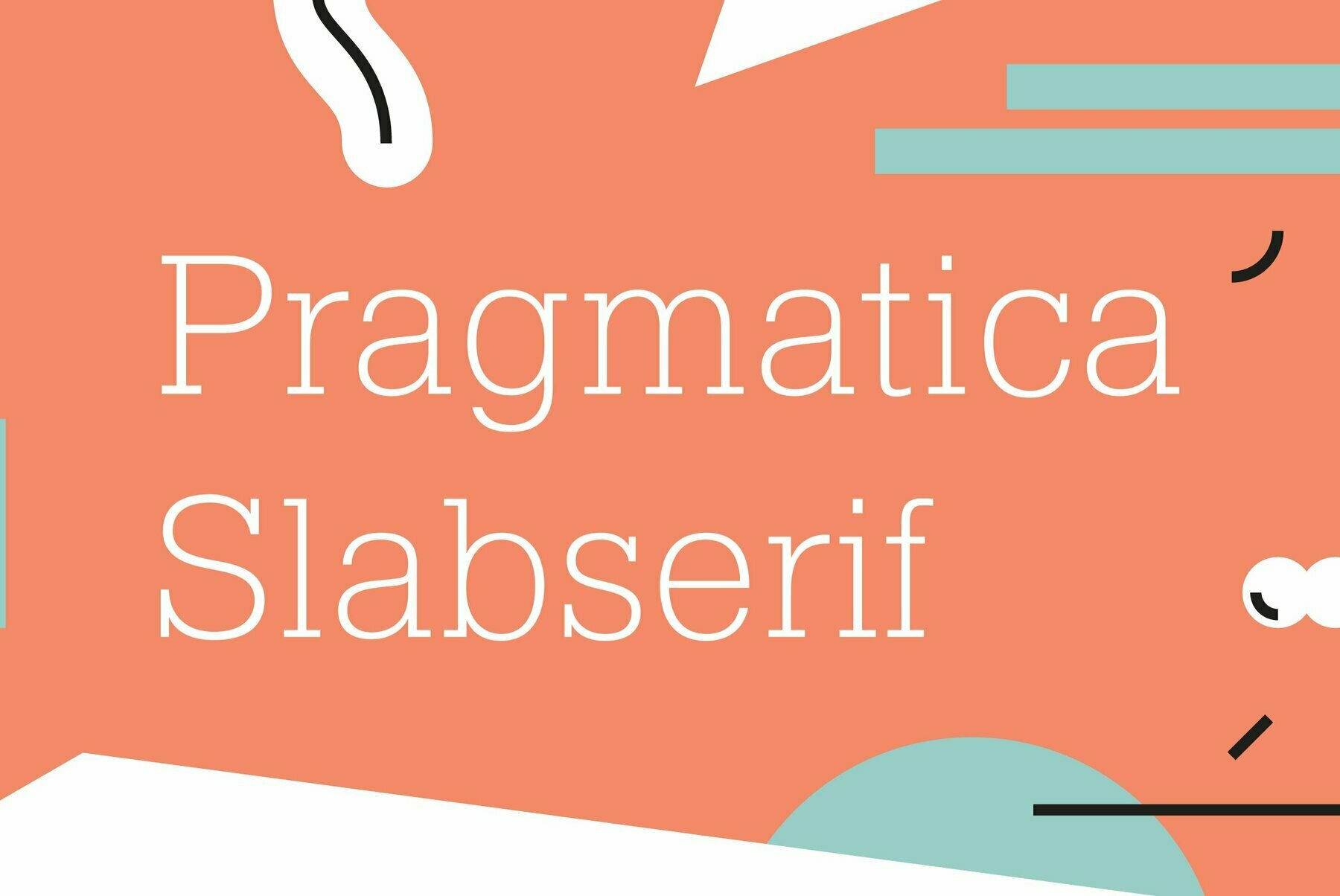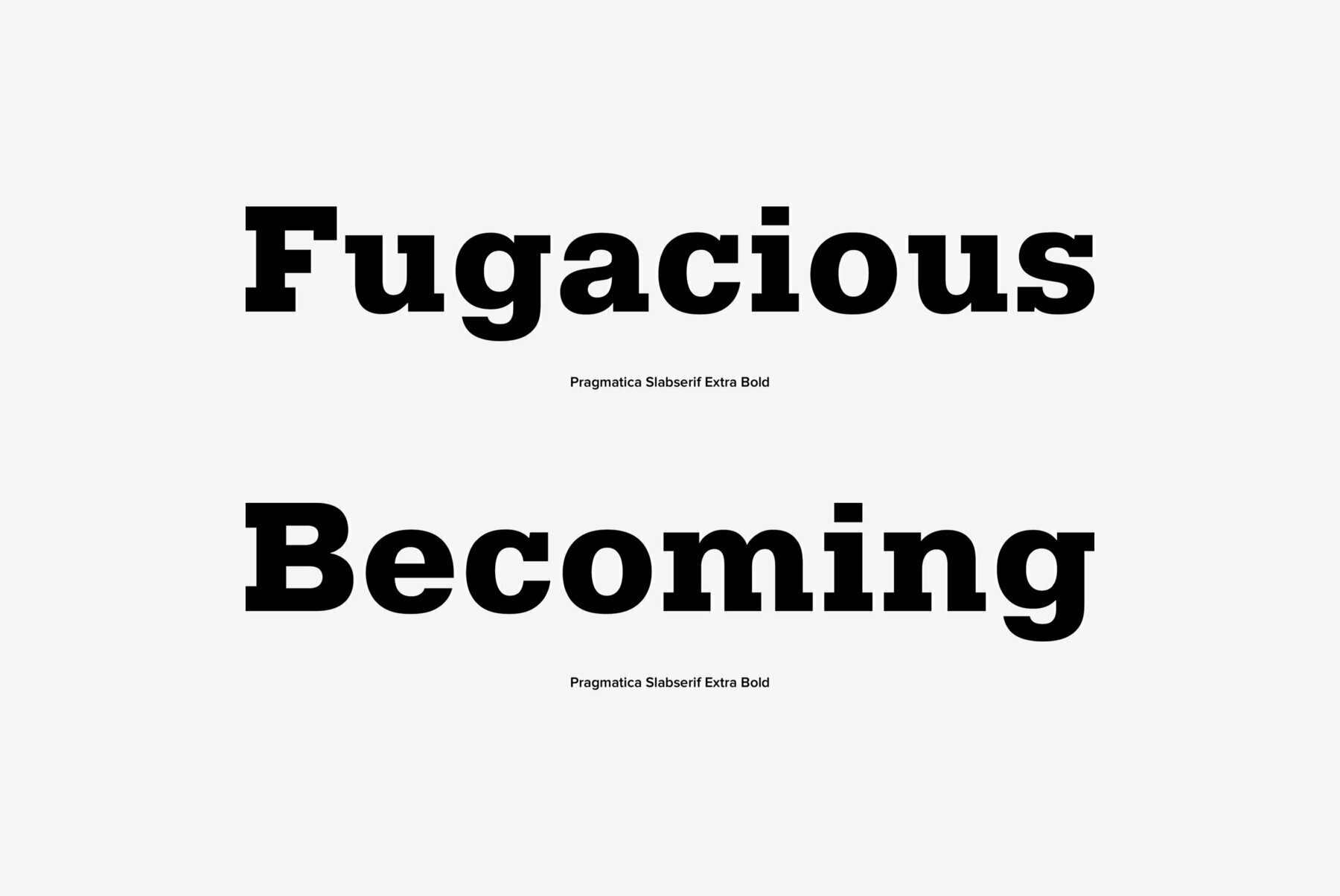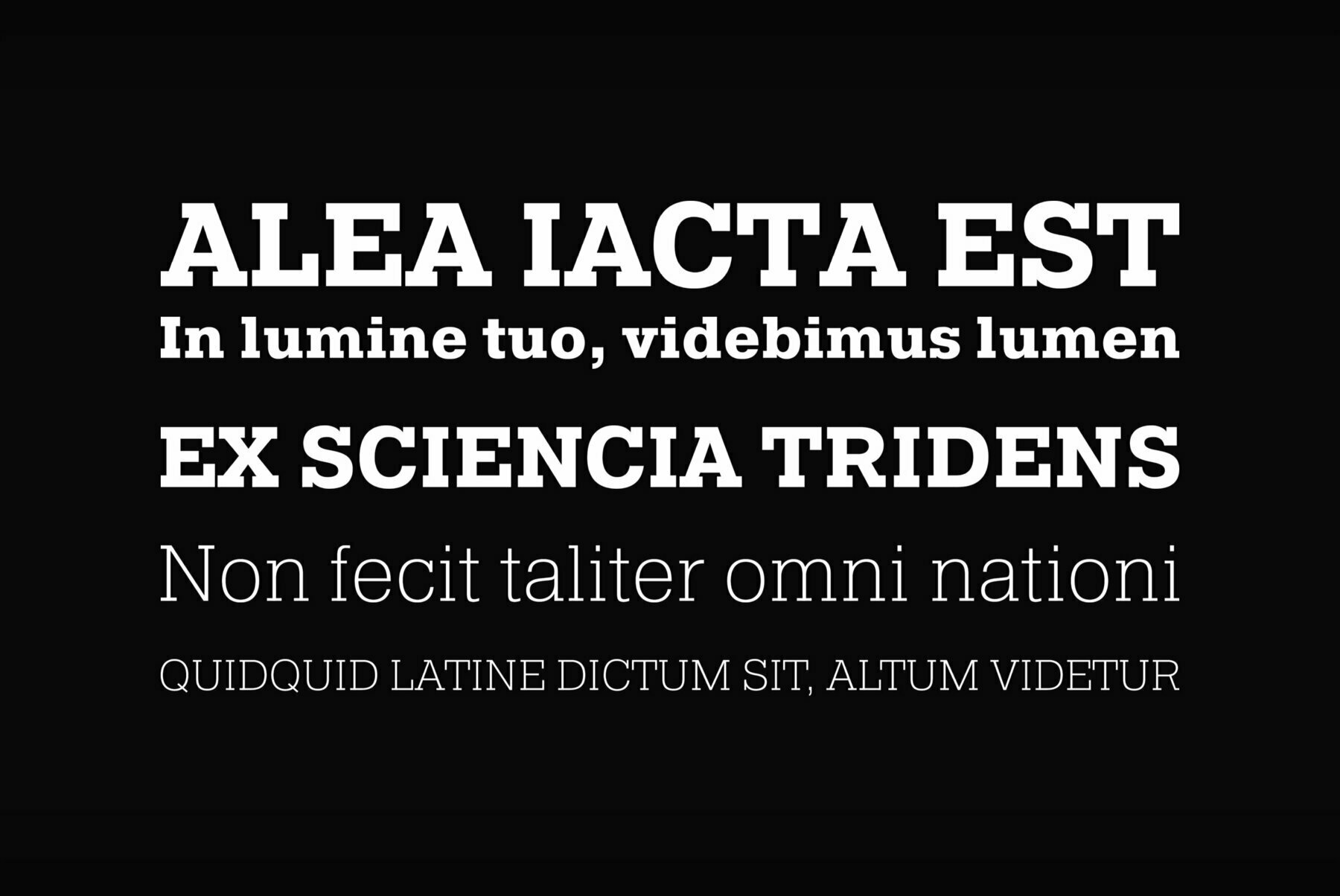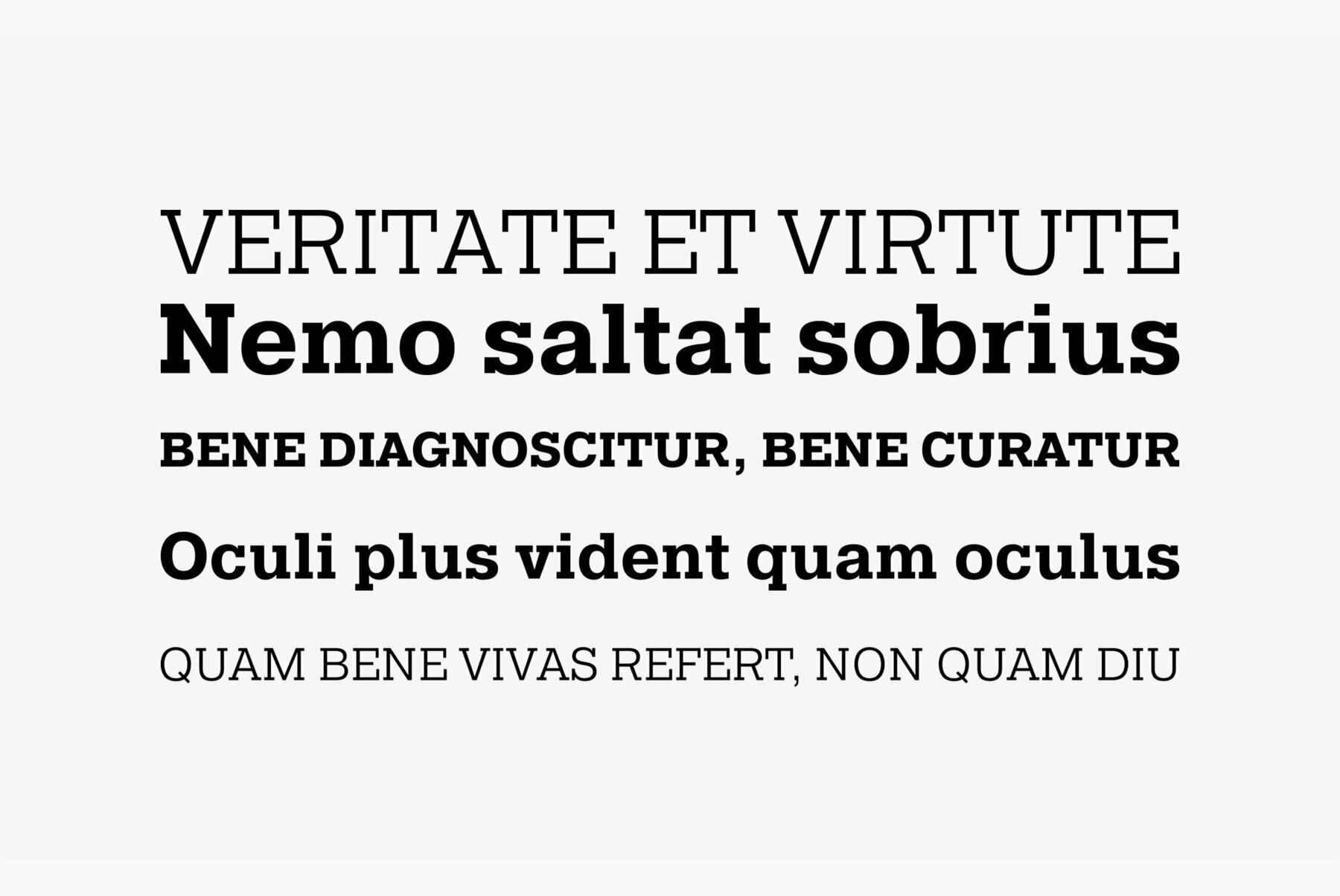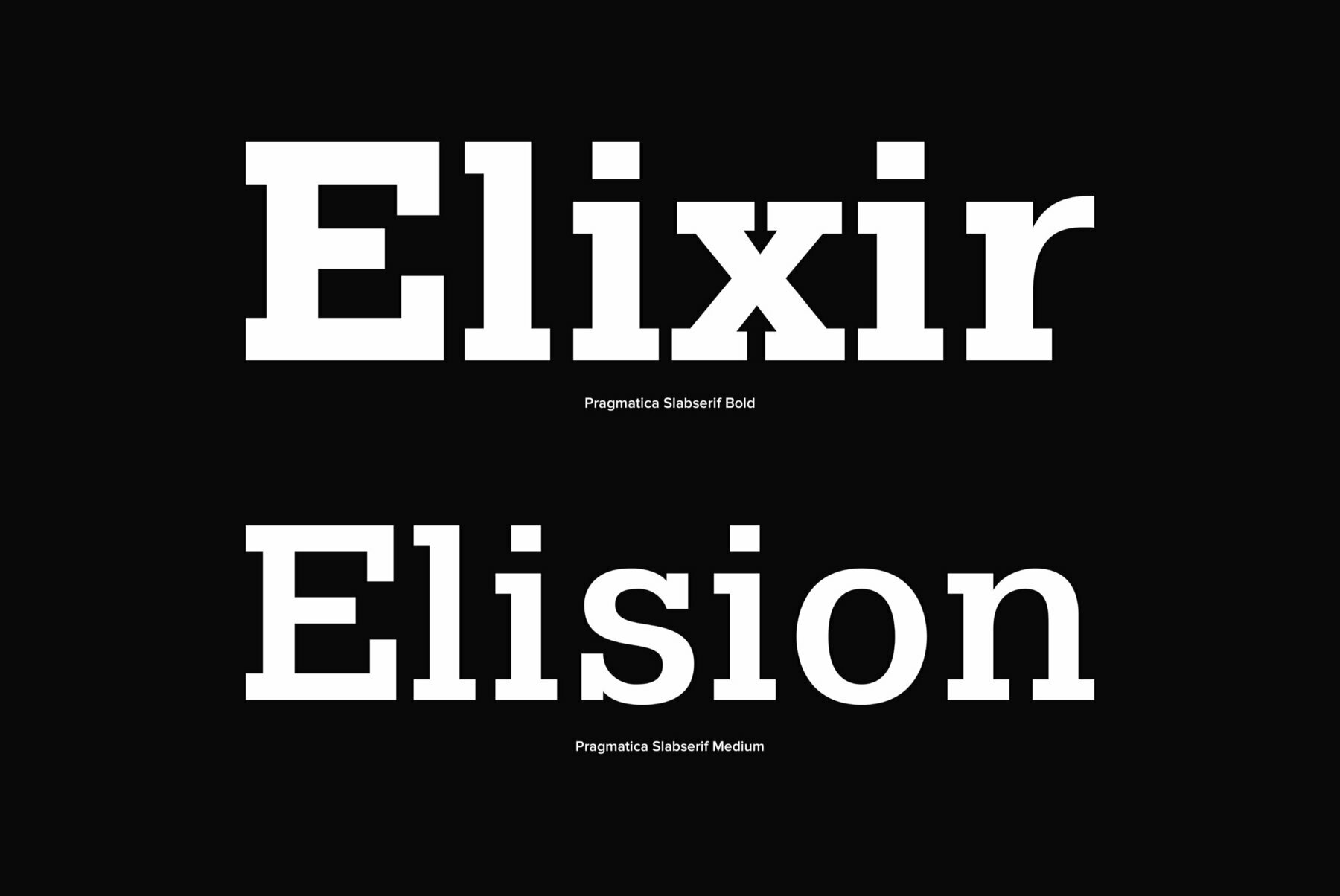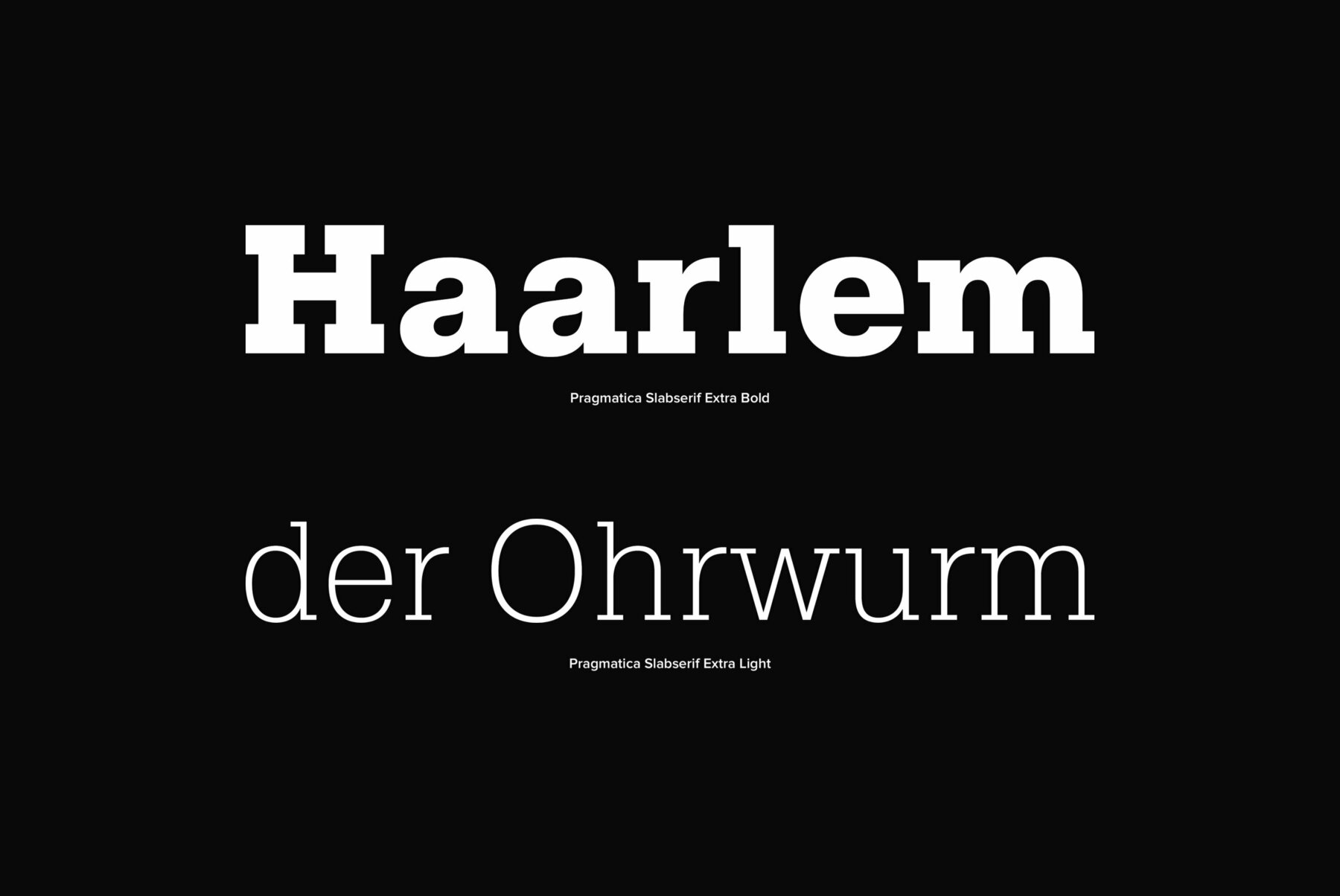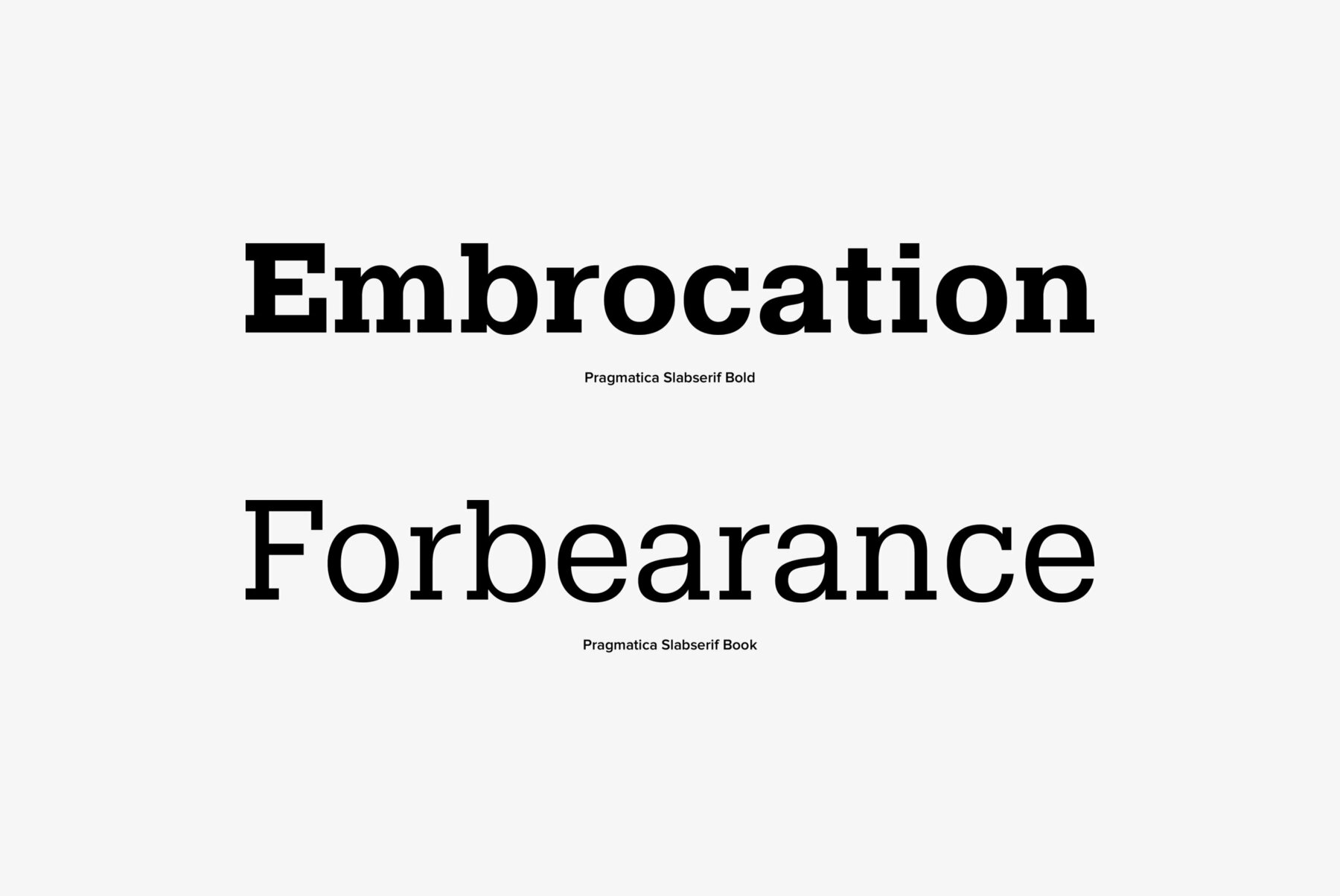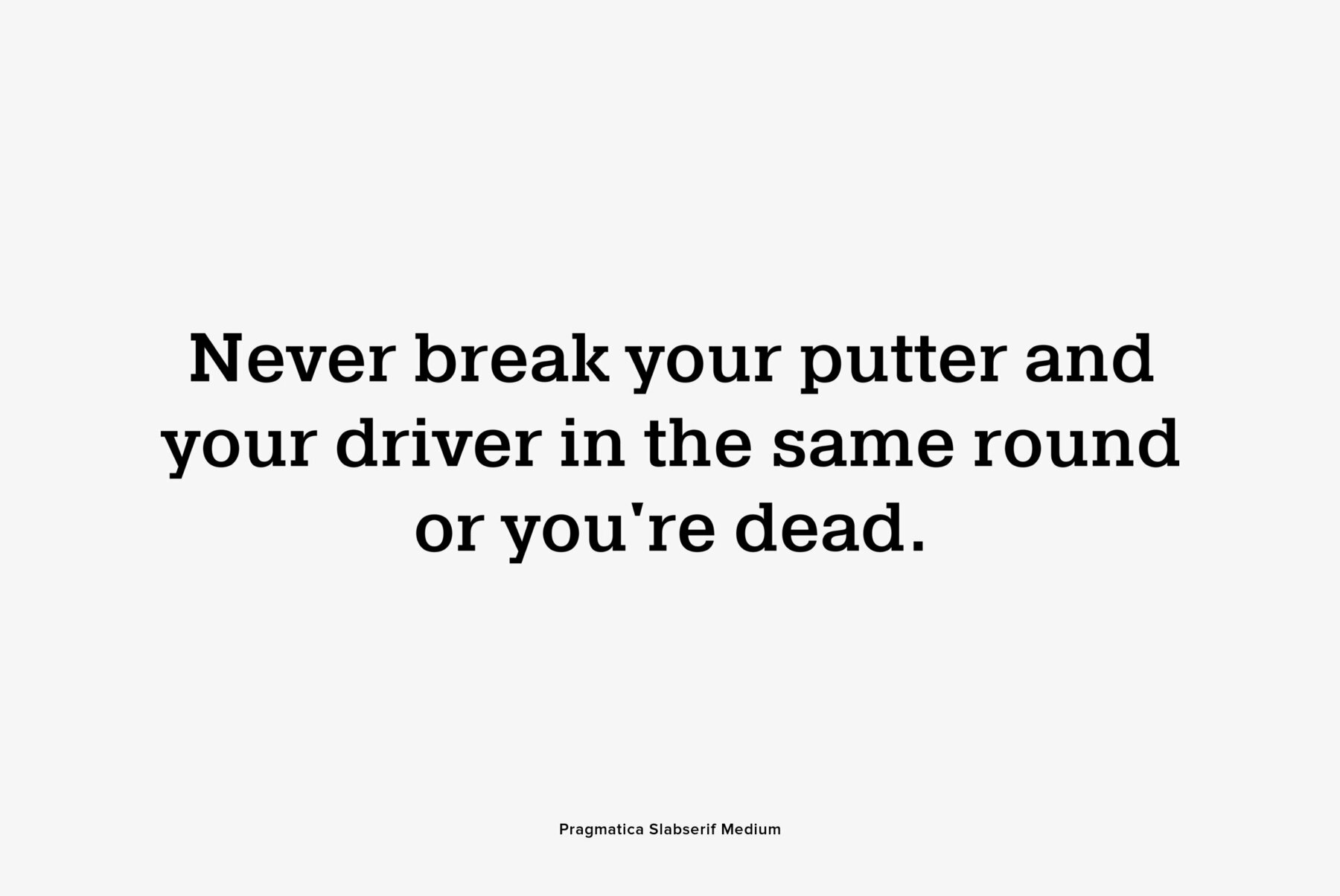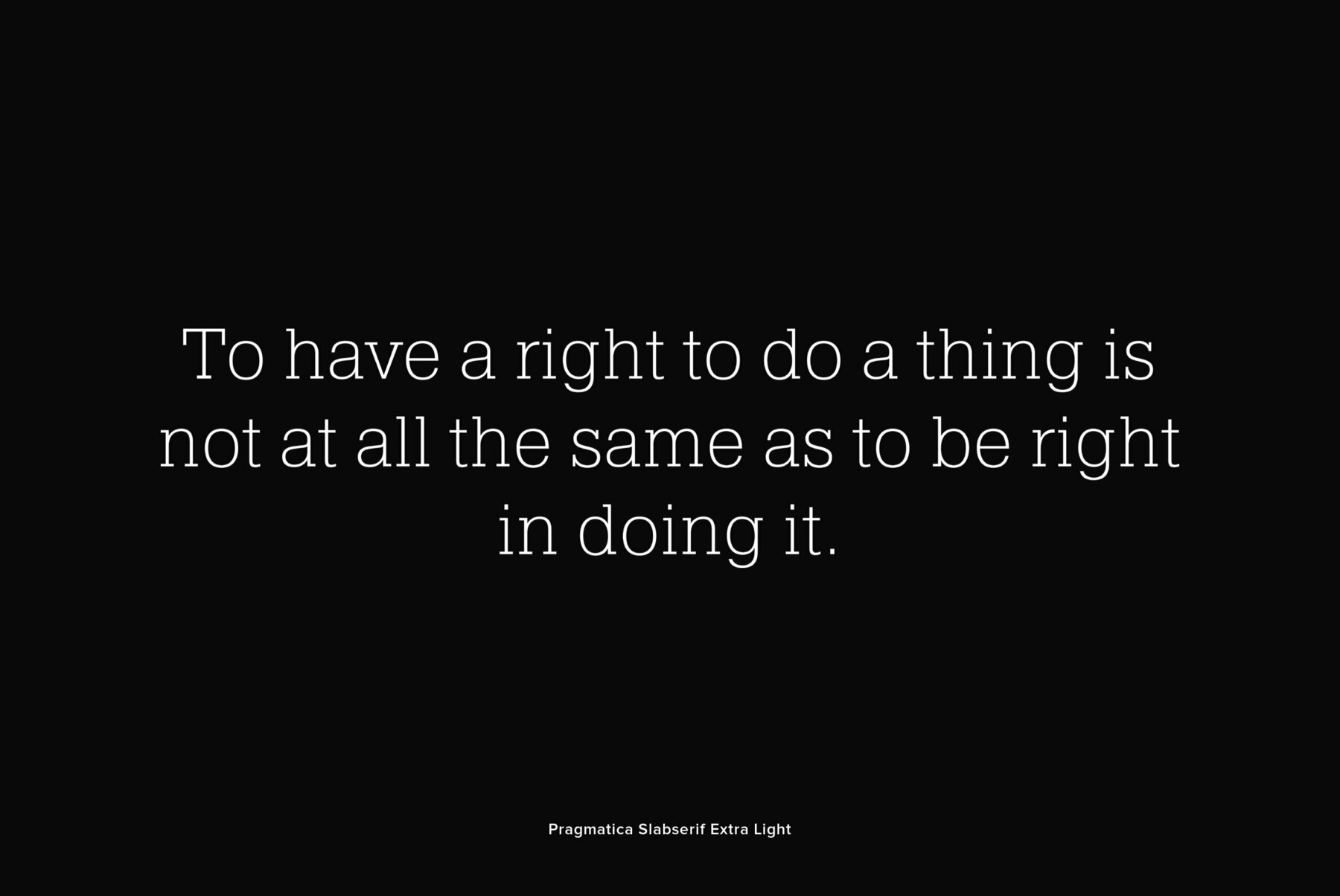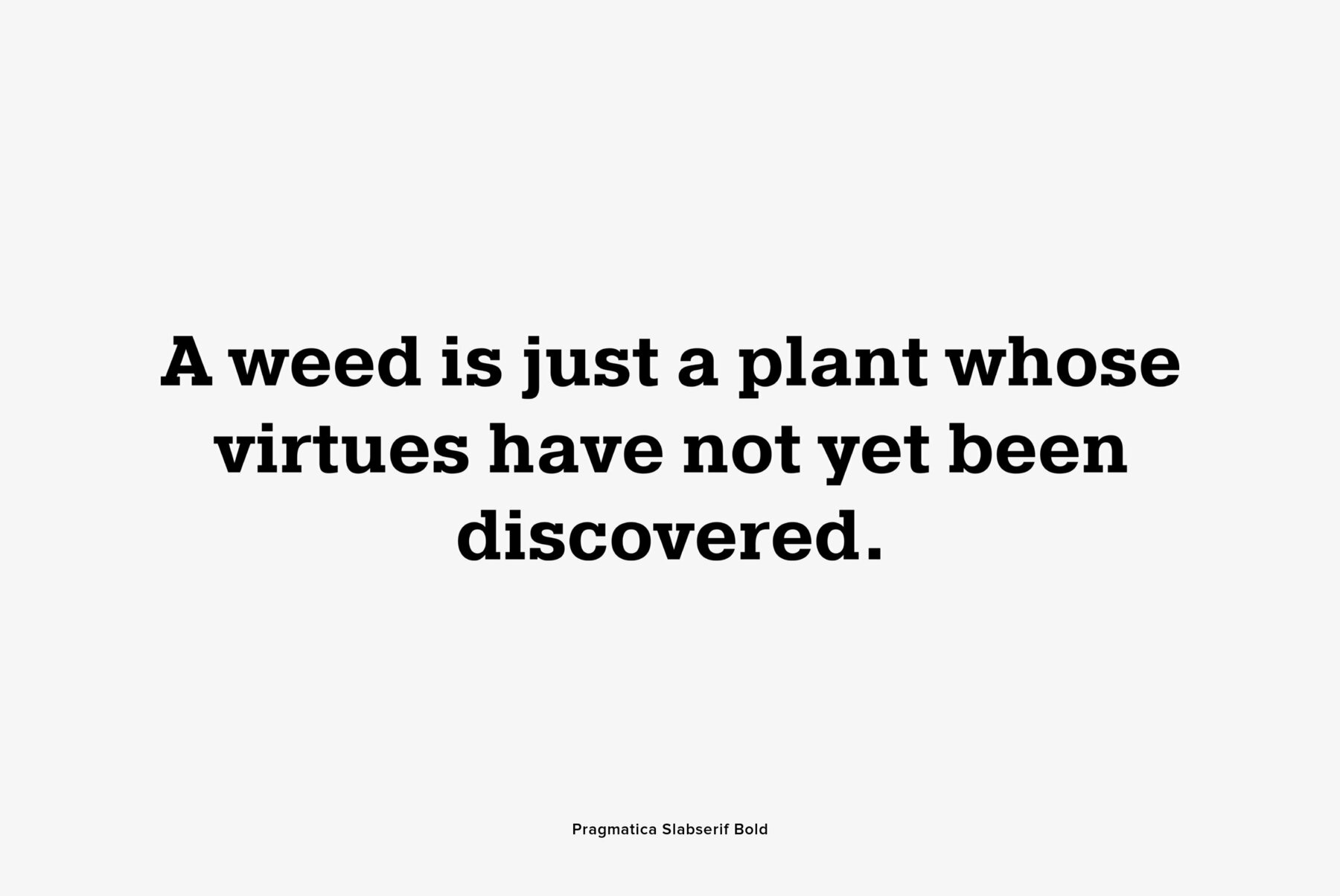
Pragmatica Slabserif
Pragmatica Slabserif was designed as a complement to the popular type family Pragmatica by Vladimir Yefimov and Isabella Chaeva (1989-2004) by addition of square serifs. Inspired by Helserif (Phil Martin, 1978) which was formed in the same way by addition of square serifs to Helvetica (Eduard Hoffman and Max Miedinger, 1957). First sketches of Pragmatica Slabserif were created by Vladimir Yefimov in 1988 during development of Pragmatica. Olga Umpeleva designed the whole slabserif type family of six weights basing on that sketches. All styles of Pragmatica Slabserif coordinate with corresponding Pragmatica styles on metrics, proportions, weights and design. The new family can be used together with Pragmatica and separately. It's convenient for technical texts, for magazines of general nature, for business applications as well as for advertising and display matter. Pragmatica Slabserif was released by ParaType in 2011.